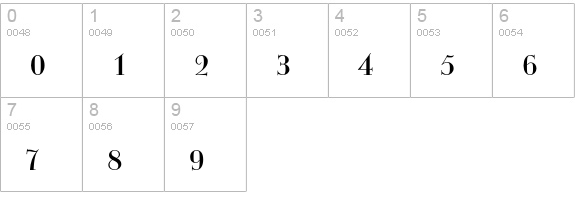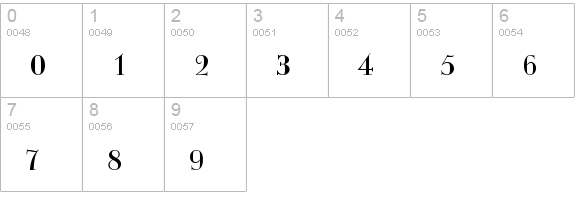
MonaLisaICG-Solid Font Details
The MonaLisaICG-Solid font is a stunning display typeface that exudes elegance and sophistication. Its intricate details and unique design make it perfect for adding a touch of luxury to any project. This font features a solid weight that ensures readability and impact, making it ideal for headlines, branding, and other design applications where you want to make a statement. What's even better is that the MonaLisaICG-Solid font is completely free to download at FontsMarket.com. This means you can enhance your designs with this beautiful typeface without any cost involved. Don't miss out on this opportunity to elevate your projects with the timeless beauty of the MonaLisaICG-Solid font. Download it today and start creating stunning designs that will leave a lasting impression.